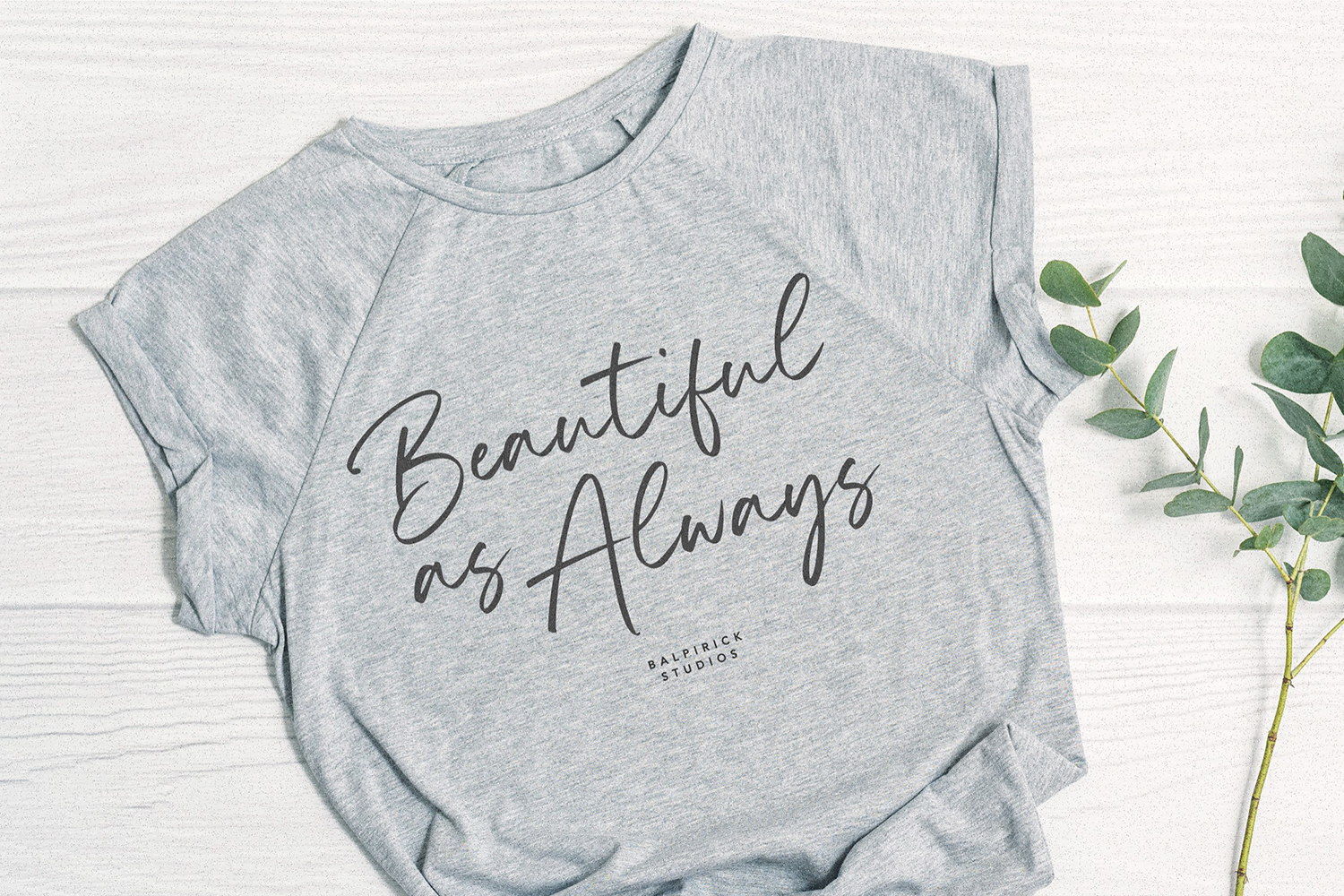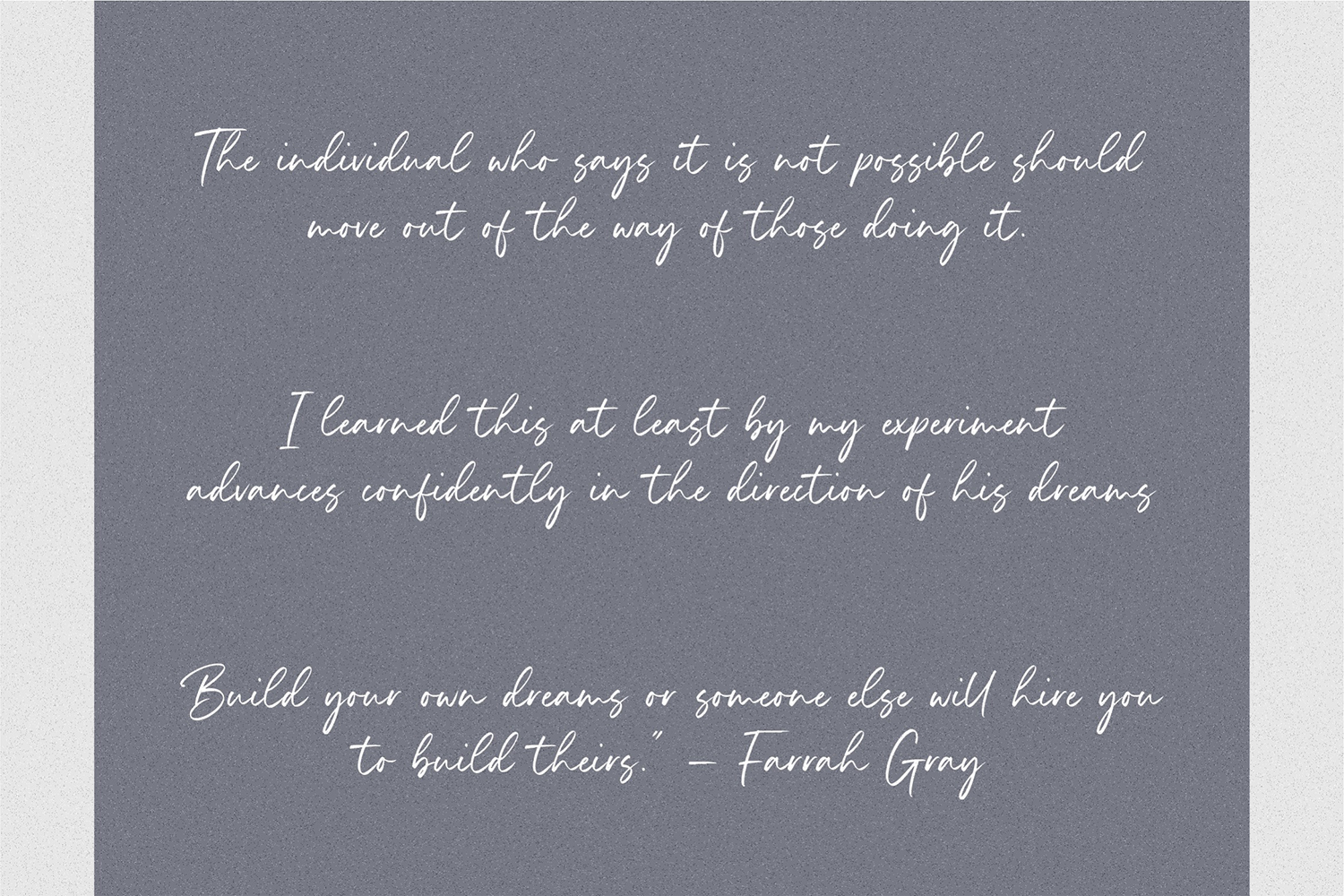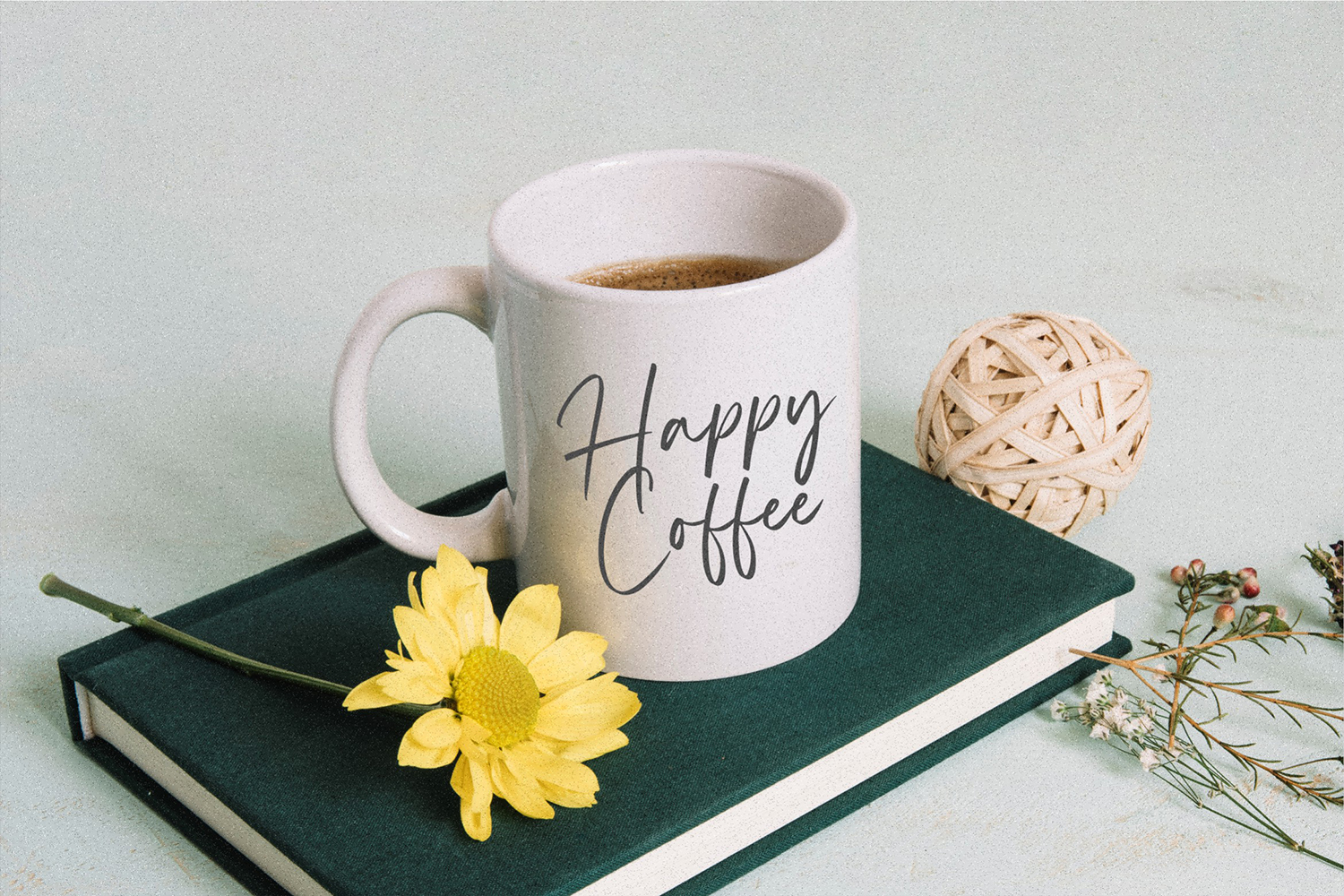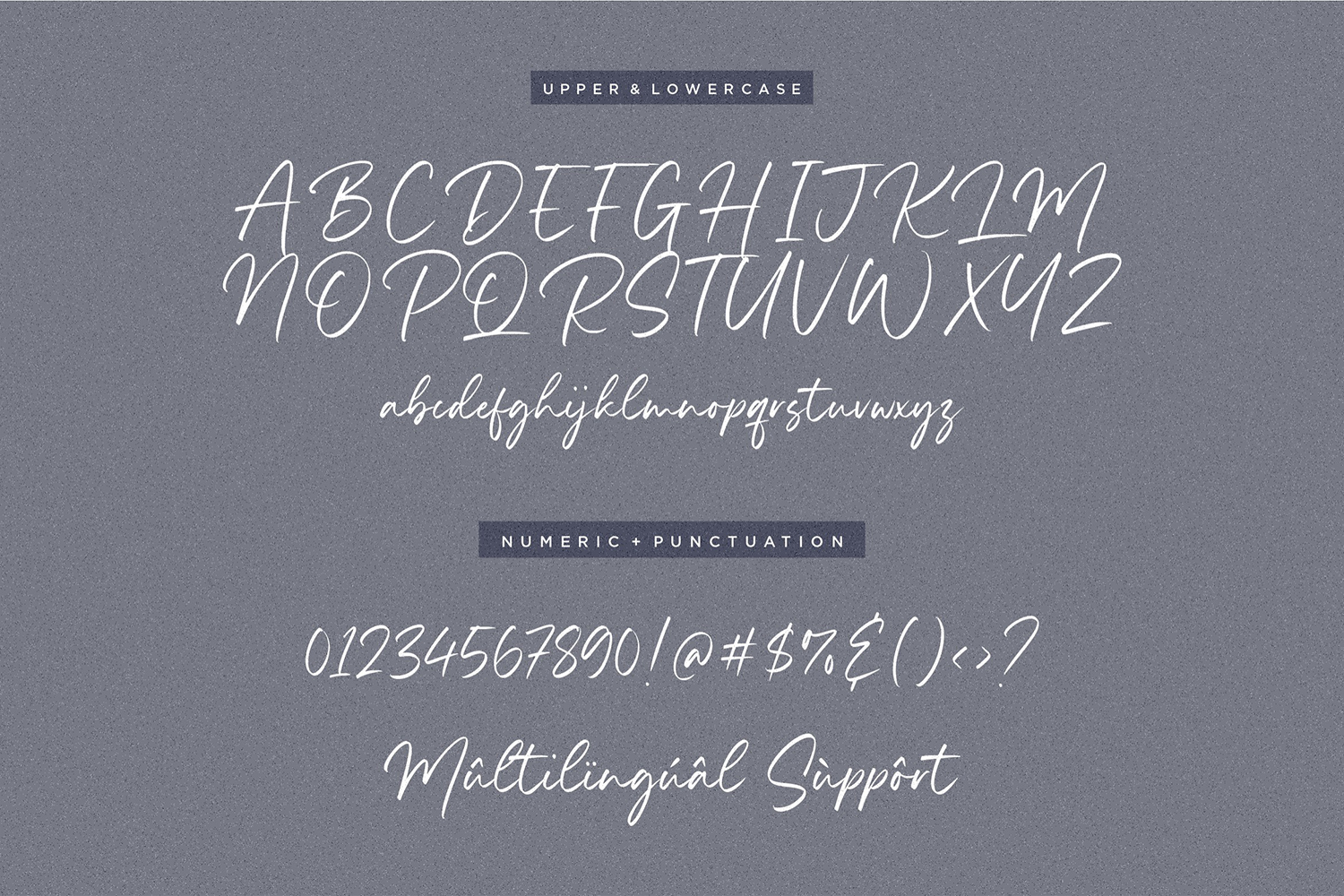
Infamous Free Font
Infamous Free Font is a cursive and stylish script font, perfect for adding a touch of elegance and sophistication. Infamous’s flowing lines and ornamental details create a sense of refinement and charm, making it ideal for wedding invitations, greeting cards, and branding materials that require a touch of luxurious flair. Get ready to make a statement with this font. This free typeface was designed by a talented Balpirick Studio. If you like it don’t forget to check out the full version.